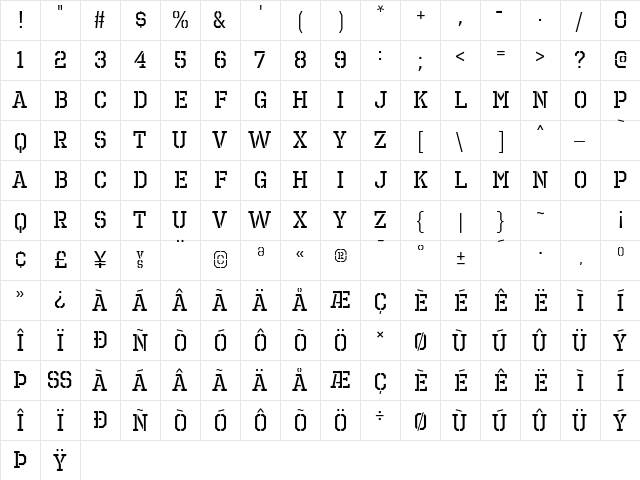
Octin Prison Regular
Design Context for Octin Prison Typeface
Octin Prison is a composed and adaptable typeface that performs quietly and consistently across a wide range of design contexts.
Pro Tip: Use Octin Prison in both headline and body roles to test its range before committing to a single application.